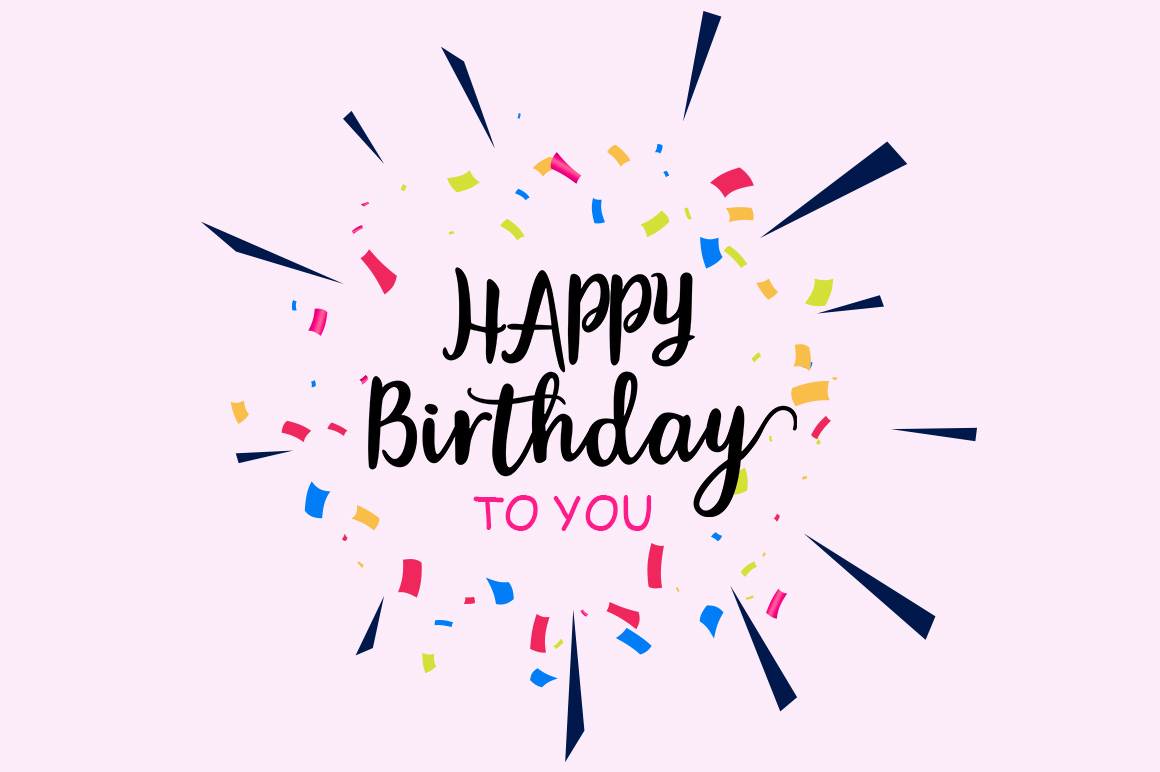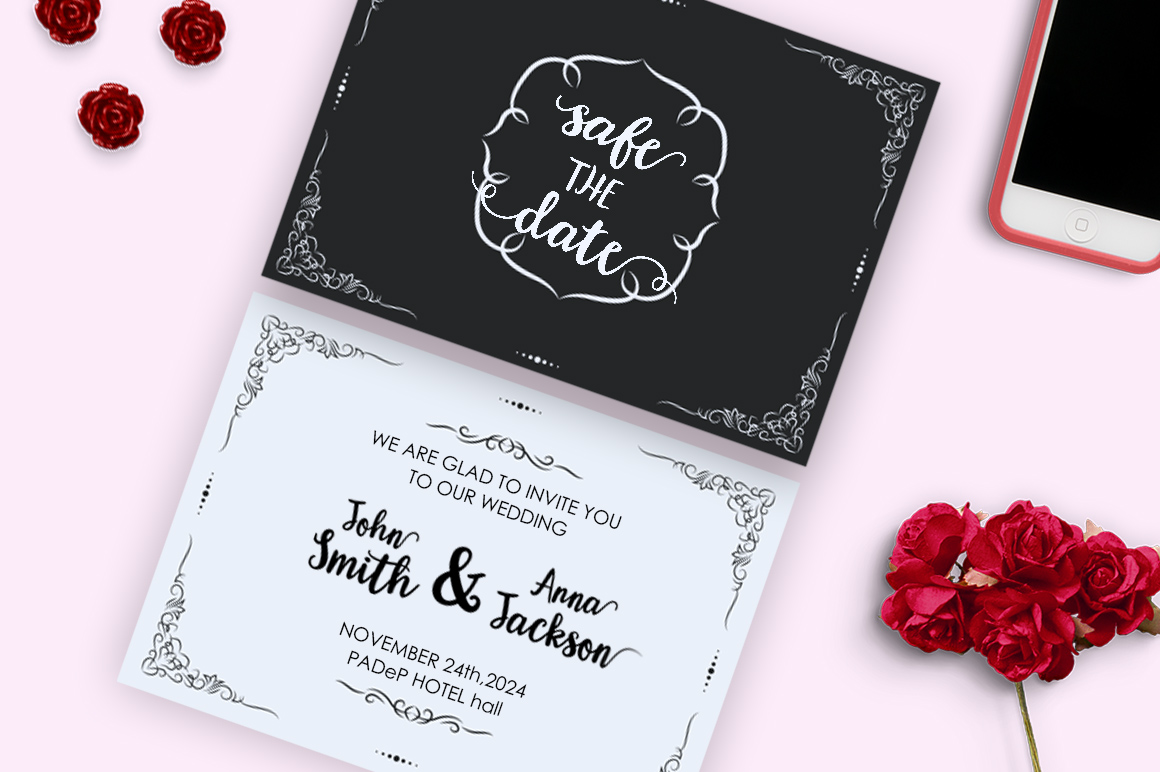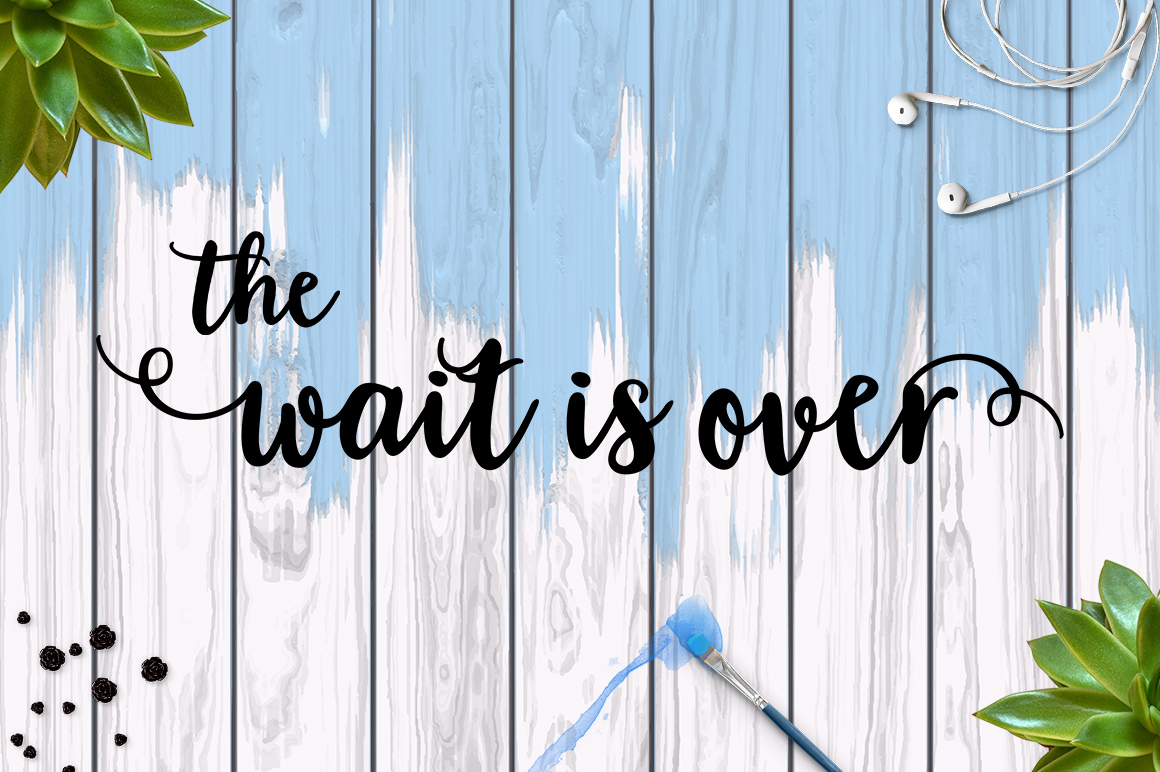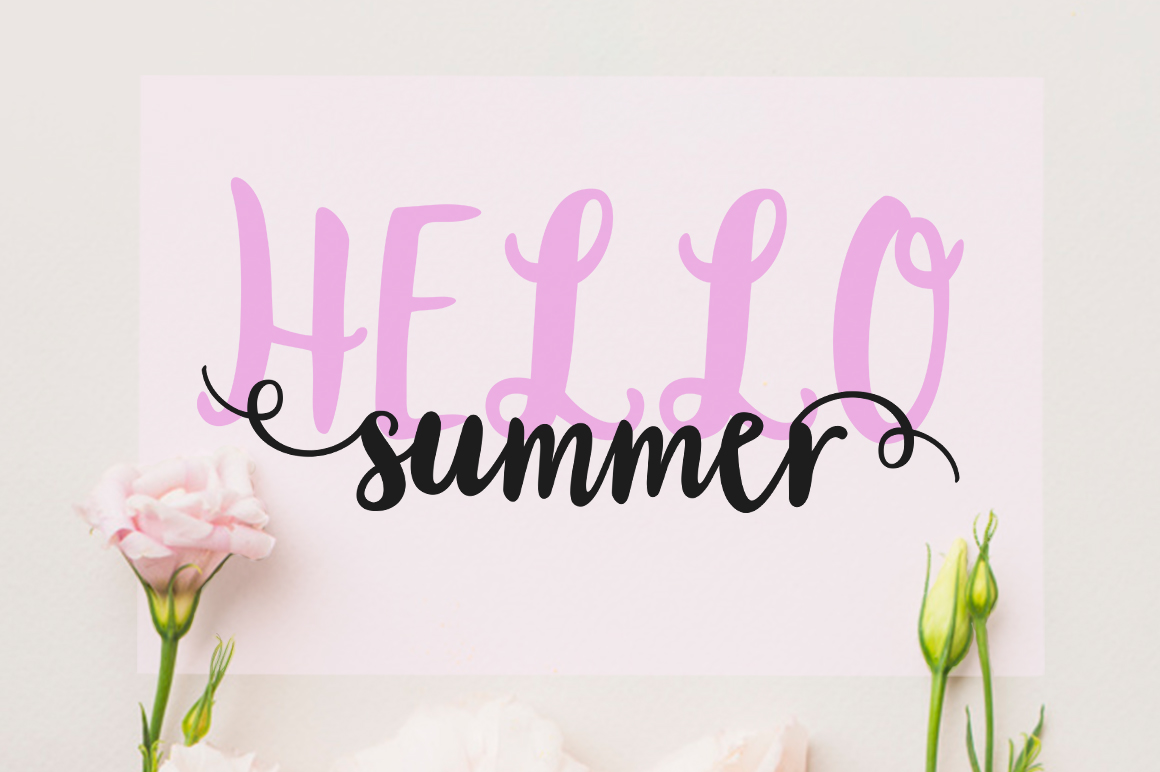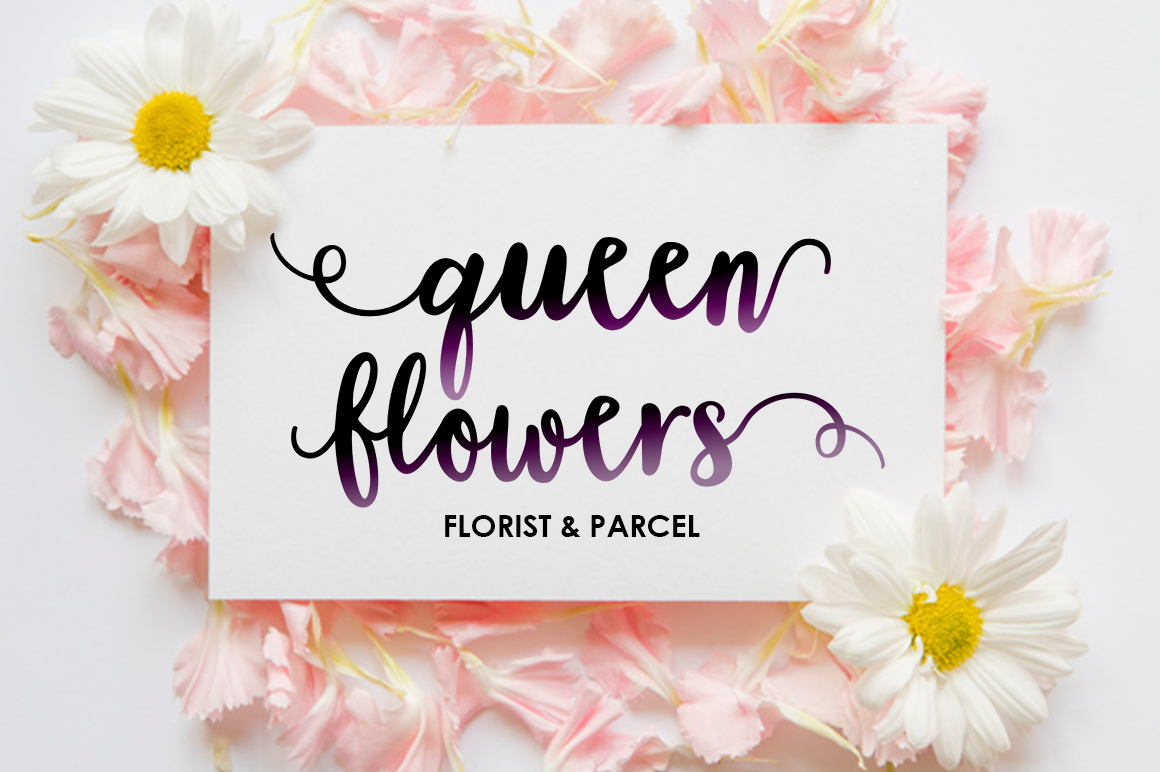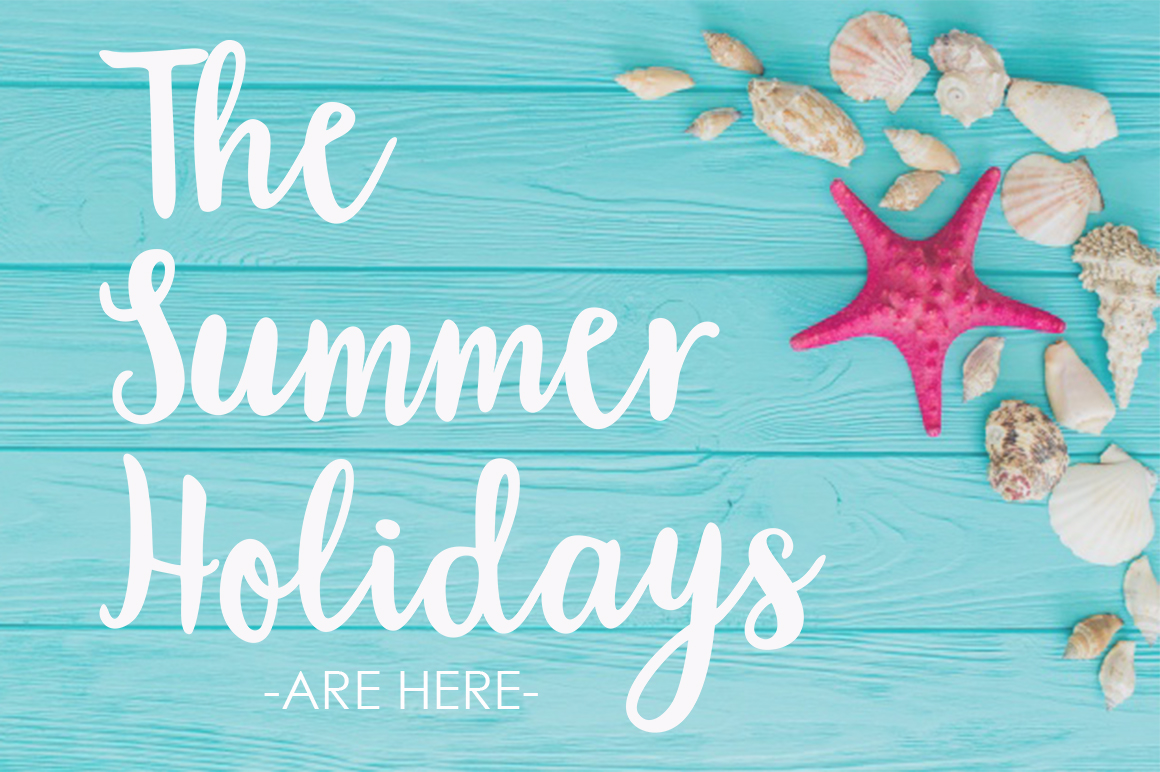
Blossom Script Font
About Blossom Script Font
Blossom Script is a modern typeface that features stunning alternate characters, such as initial and end swashes.
It’s the perfect script to create jaw-dropping designs and helping you to make your work stand out.